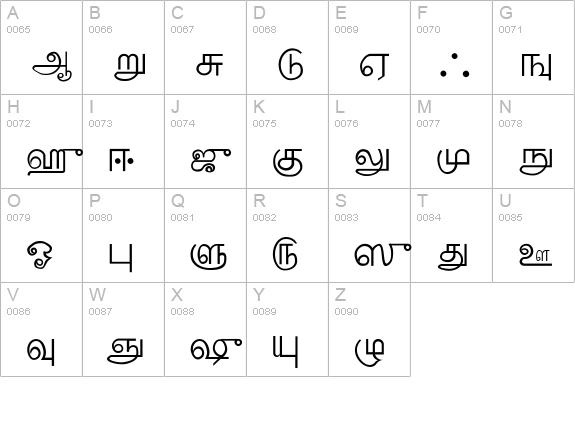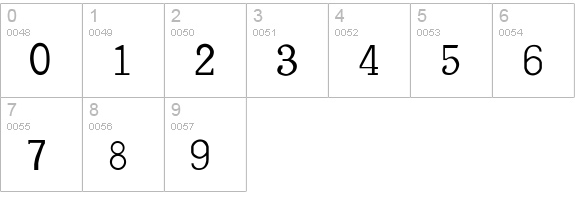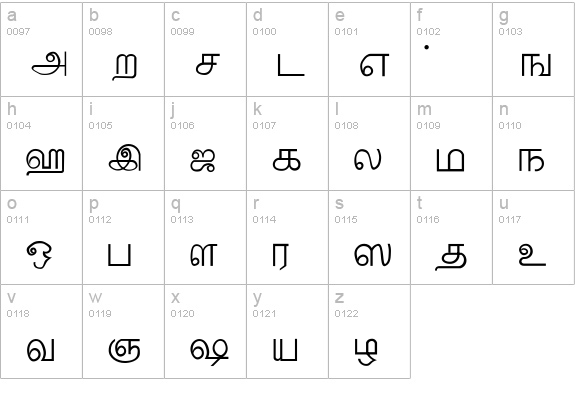
The Tamil font is a visually stunning and elegant typeface that adds a touch of sophistication and cultural richness to any written content. With its intricate strokes and captivating design, this font is perfect for various projects, including signage, branding, posters, invitations, and more. What makes this Tamil font even more remarkable is that it is available for free! Yes, you heard it right. You can freely download this font from FontsMarket.com, a trusted source for high-quality and diverse fonts. Whether you are a professional designer, an enthusiast, or someone looking to add a unique touch to your personal projects, this Tamil font is a must-have. The beauty of this font lies not only in its aesthetic appeal but also in its versatility. It seamlessly blends with different design styles and can be used across various platforms, including print and digital media. Its legibility ensures that your message is conveyed effectively, while its distinctiveness makes it stand out from the crowd. Furthermore, this Tamil font is meticulously designed, with attention to detail given to every curve, line, and dot. The result is a harmonious and balanced typeface that exudes elegance and professionalism. Whether you are creating a logo, designing a website, or even writing a heartfelt message, this font will elevate your content and leave a lasting impression. So, why wait? Experience the beauty and versatility of the Tamil font today by downloading it for free at FontsMarket.com. Enhance your designs, captivate your audience, and embrace the cultural richness that this font offers. With its availability at no cost, you have the freedom to explore its potential and create something truly extraordinary. Don't miss out on this opportunity to elevate your design game – download the Tamil font now and let your creativity soar.